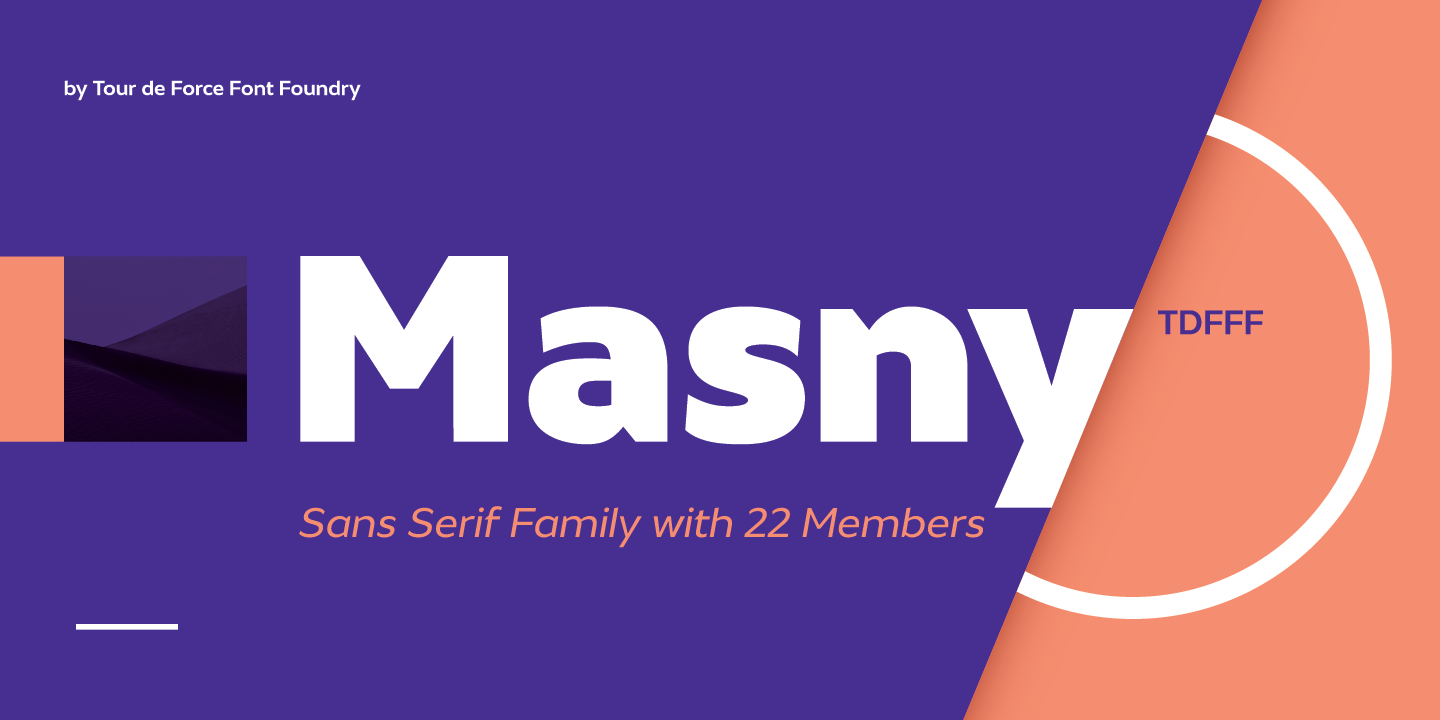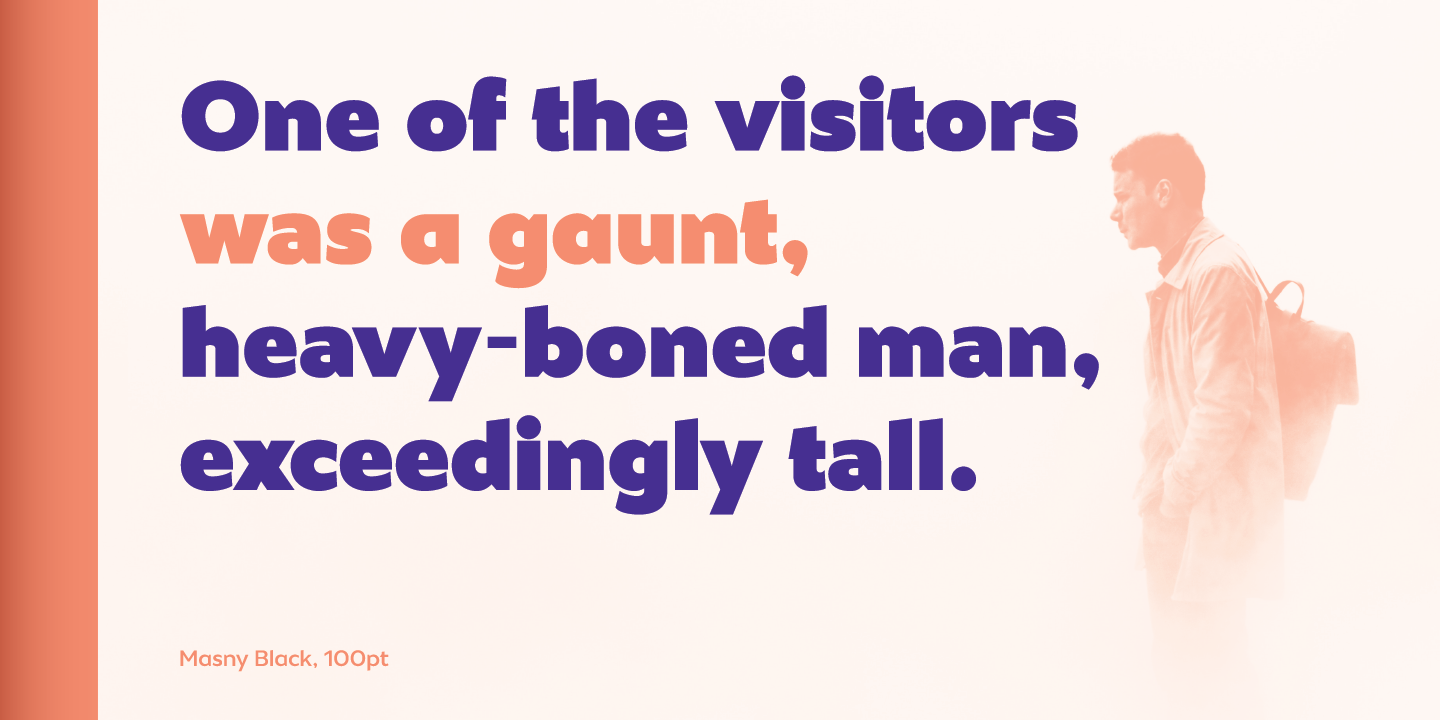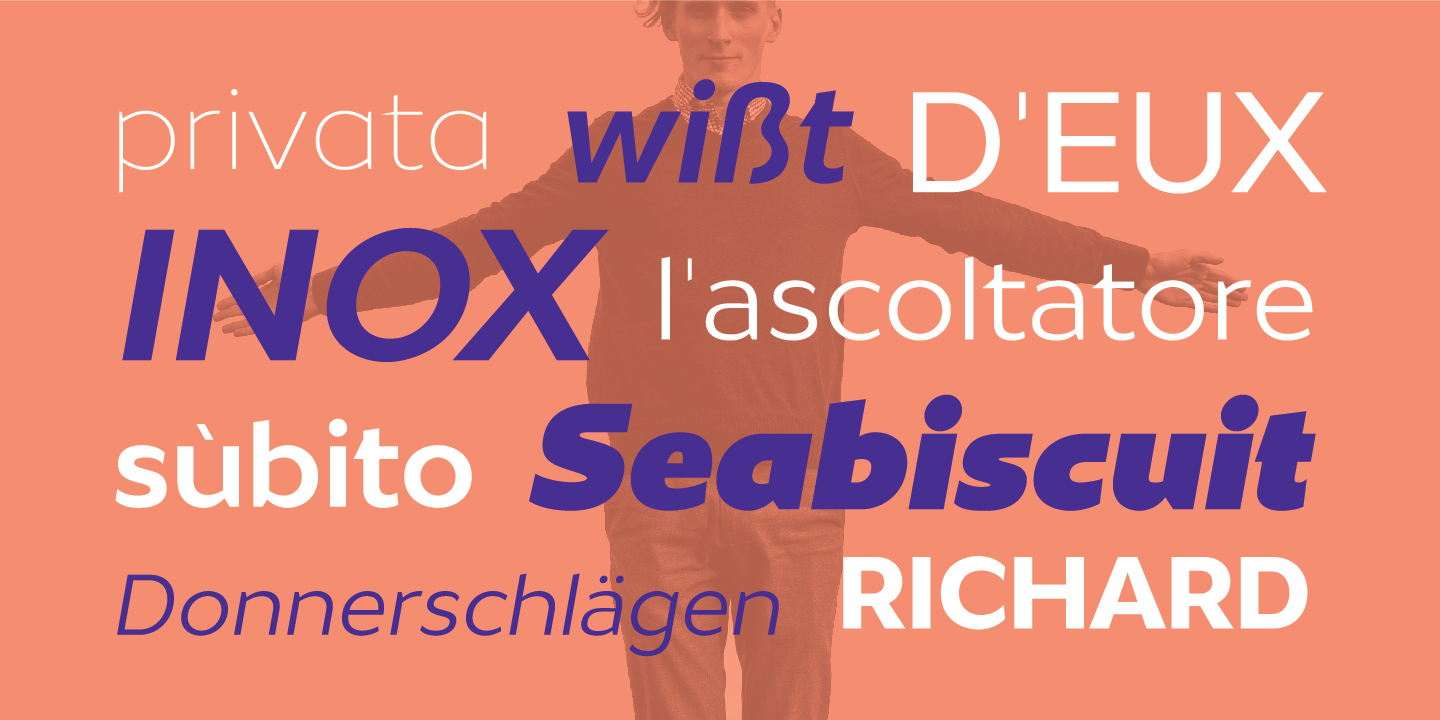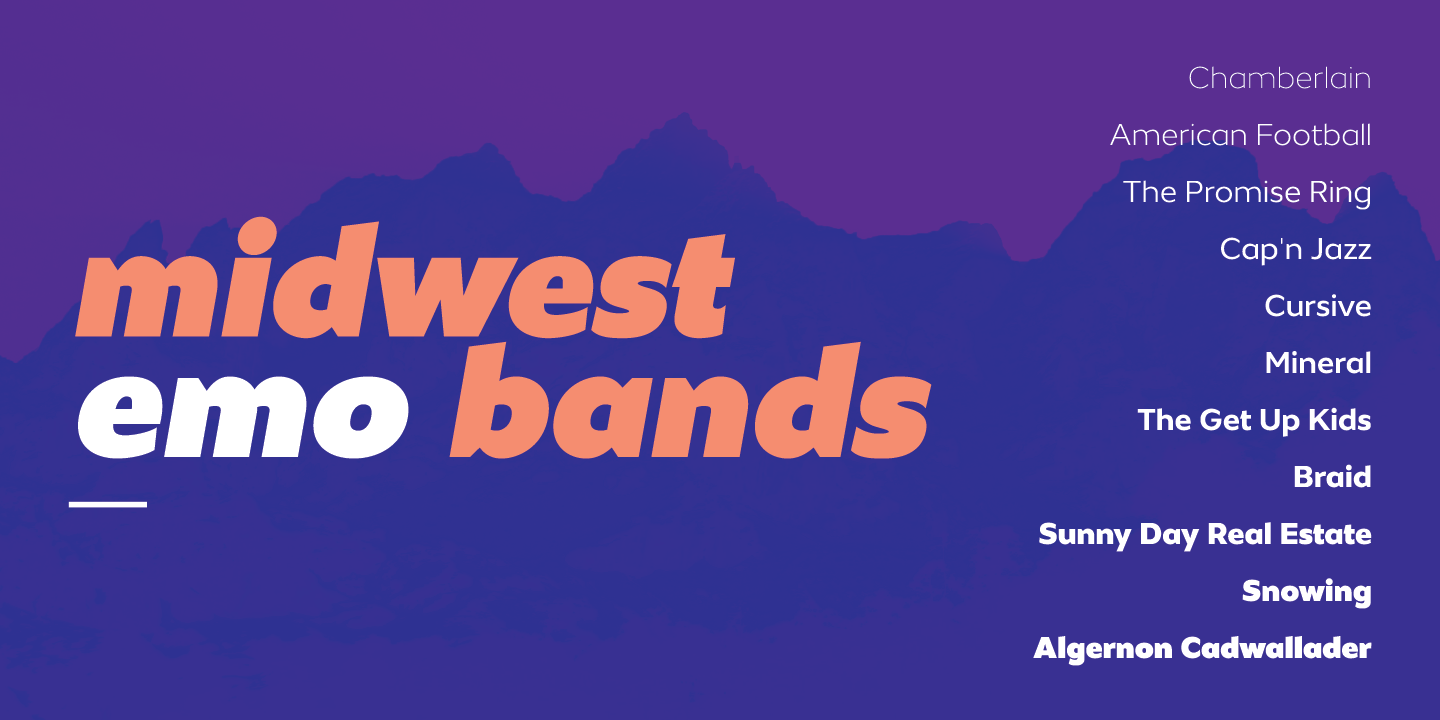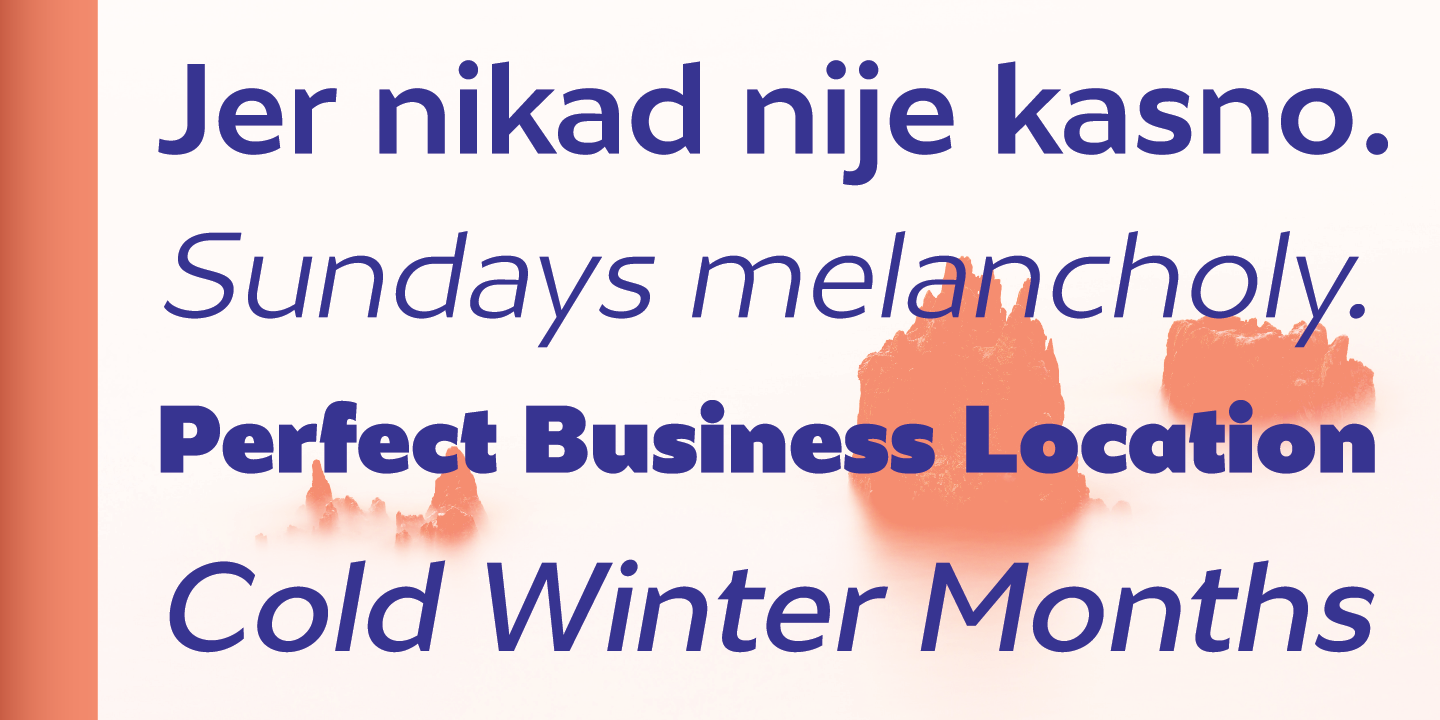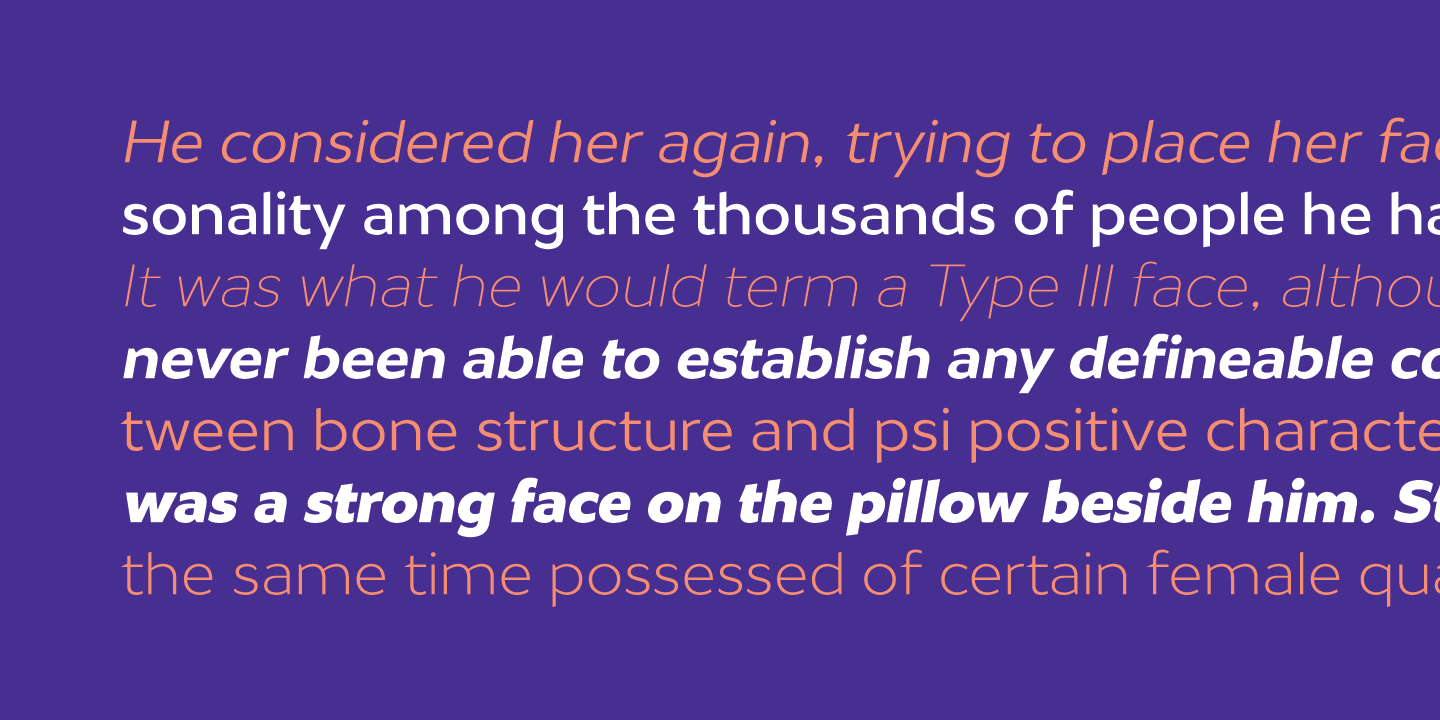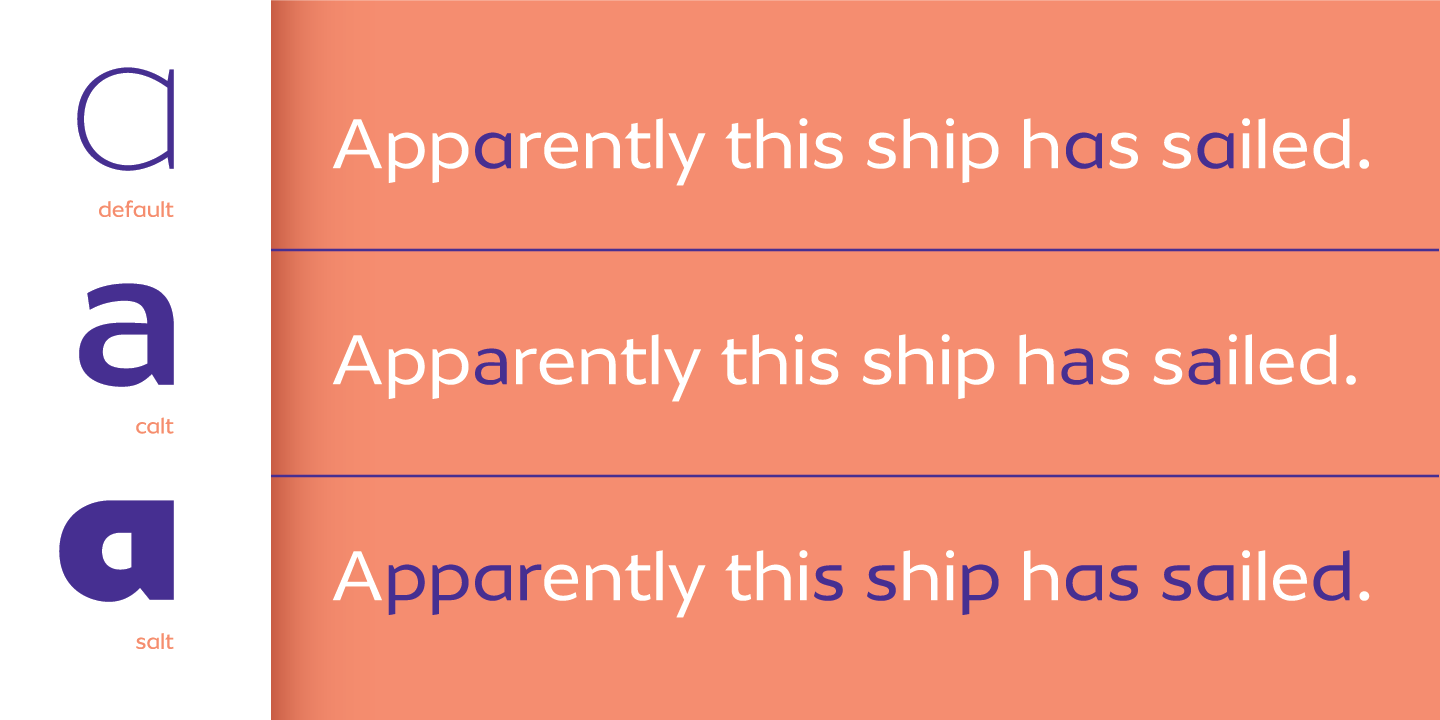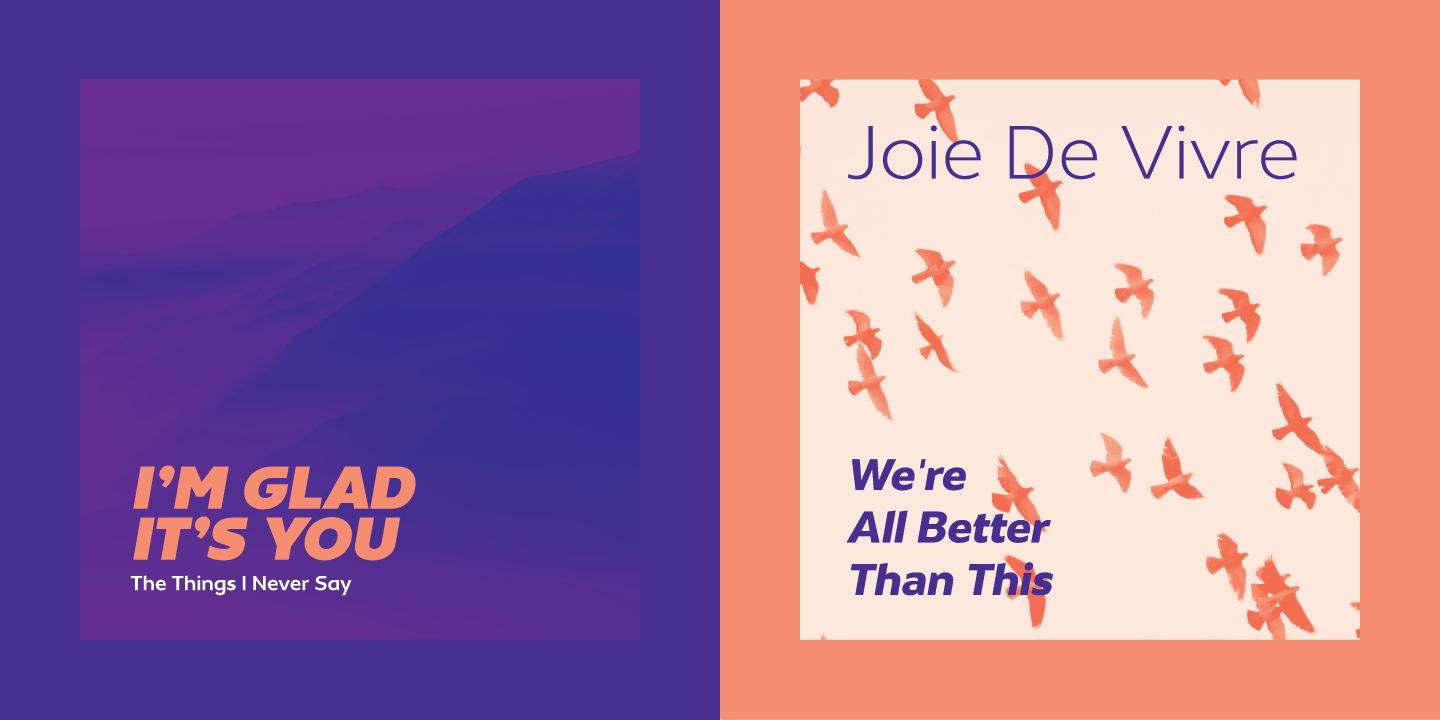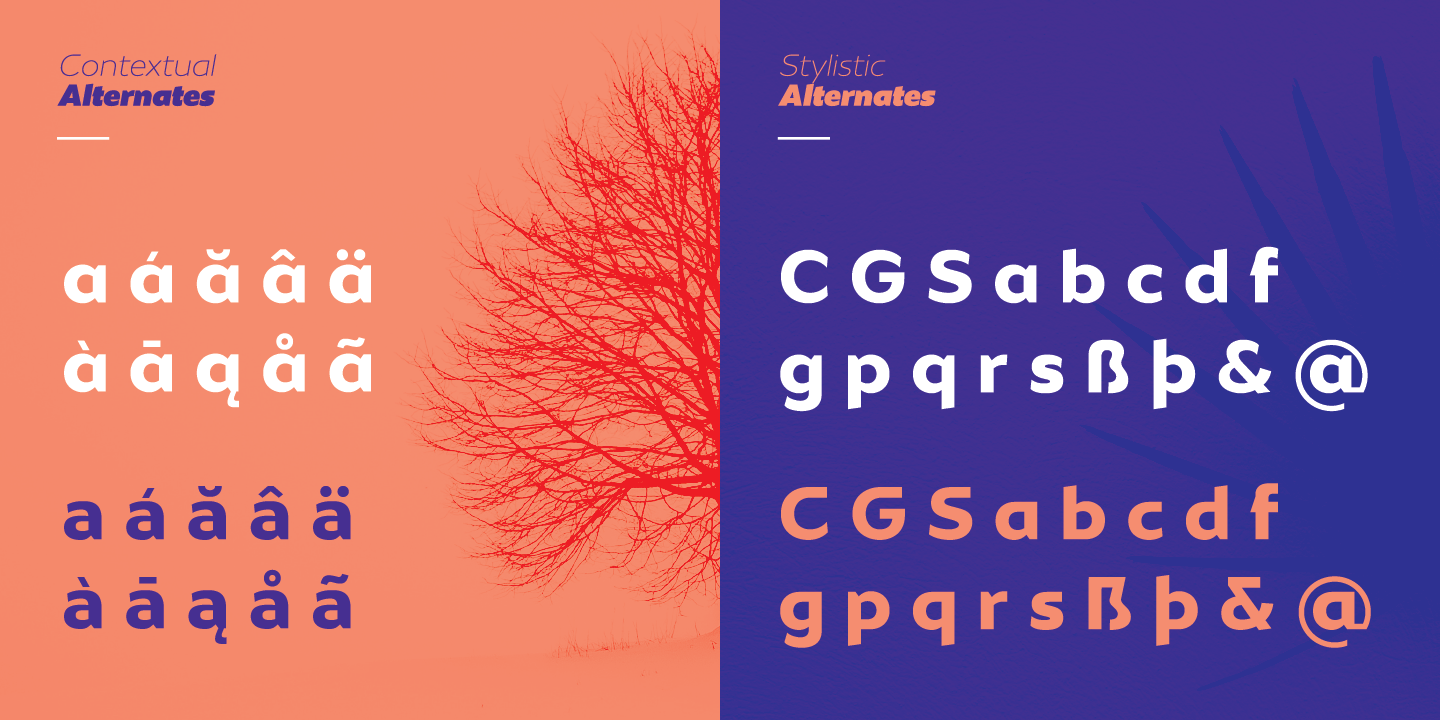
Masny is a modern sans serif family that comes in 22 weights. It contains Stylistic and Contextual Alternates. Masny is intended for use in every situation, from editorial design to branding.